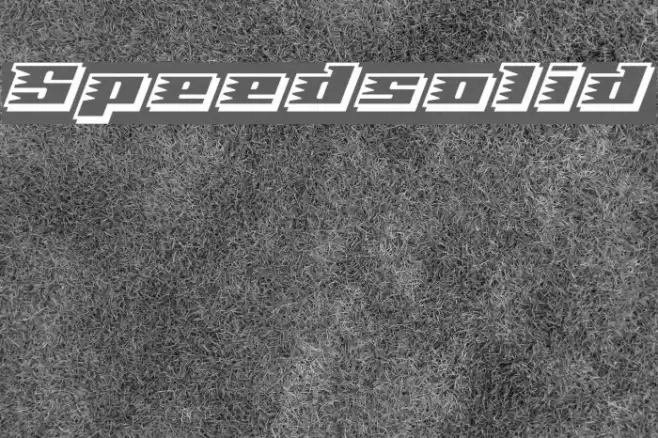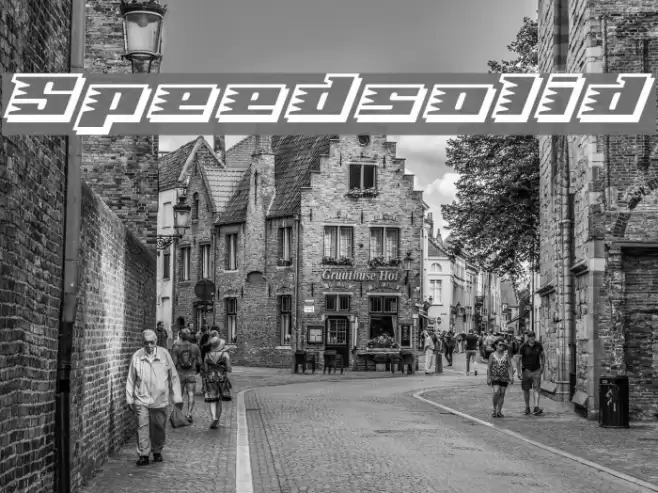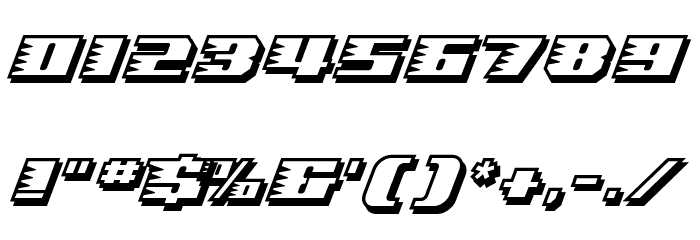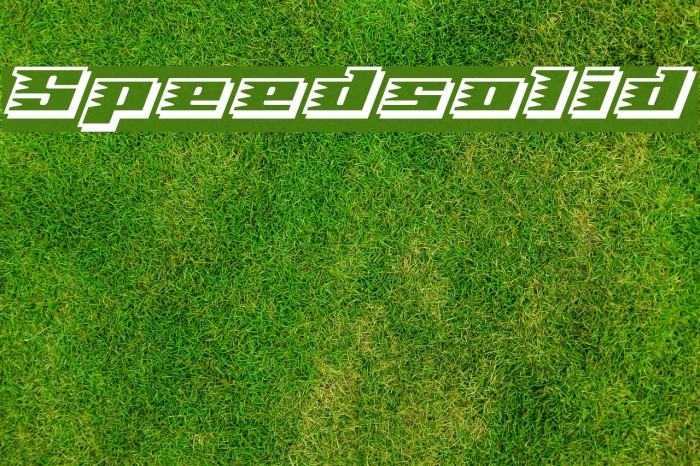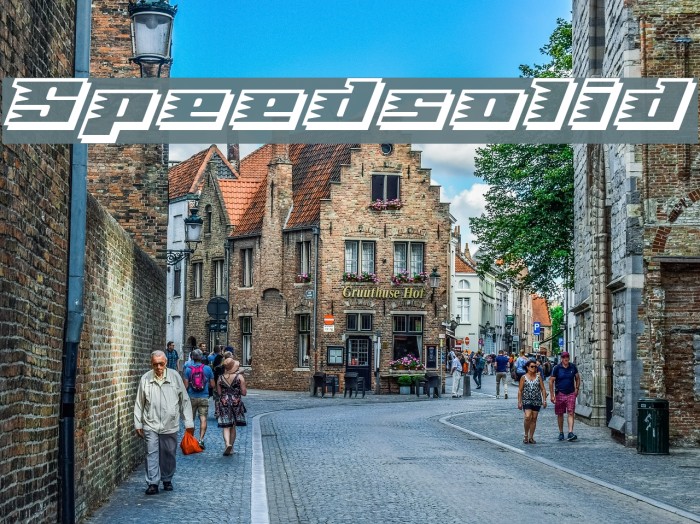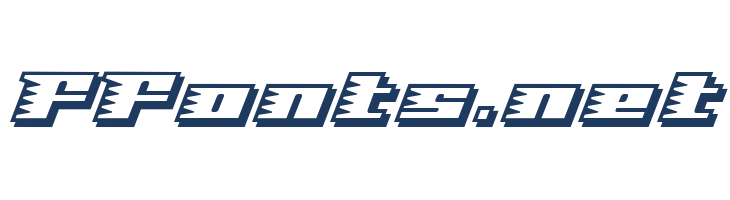
Speedsolid Font
Speedsolid Description
This font features a bold, dynamic style with a strong emphasis on speed and movement. The characters are designed with sharp, angular edges and a three-dimensional effect that gives them a sense of depth and motion. The uppercase and lowercase letters maintain a consistent style, with the uppercase being slightly more pronounced. Numbers and special characters follow the same design principles, ensuring uniformity across all glyphs. The font's unique design makes it stand out, capturing attention with its energetic and modern aesthetic.
A bold, dynamic font with sharp, angular edges and a 3D effect from Uncategorized fonts.
- Proposed Projects: Ideal for sports branding, automotive advertisements, video game titles, and dynamic posters.